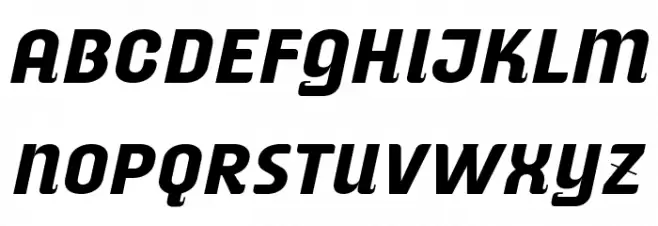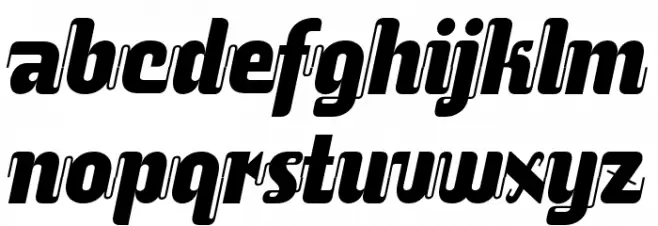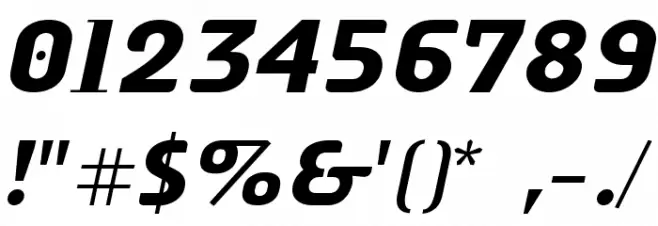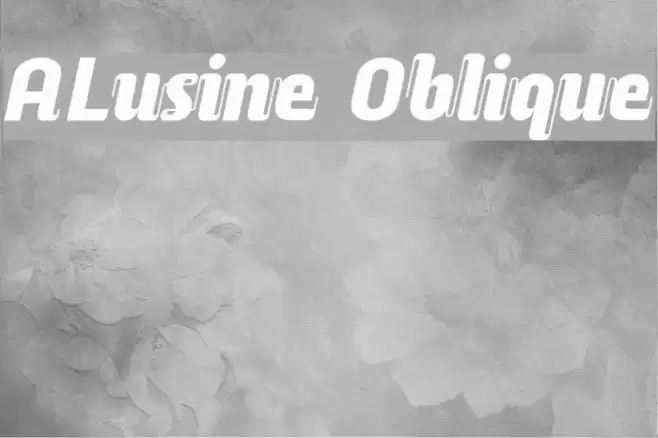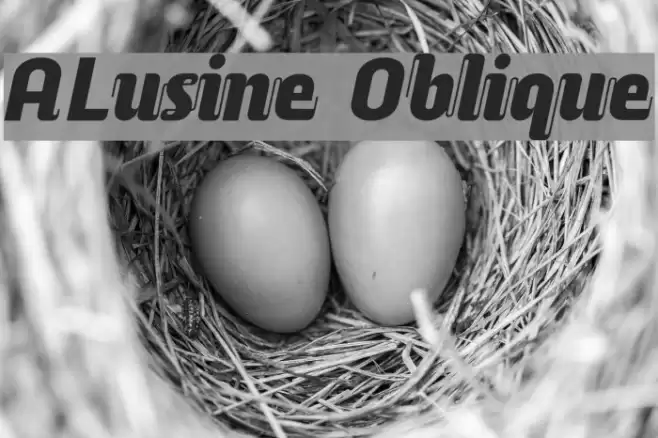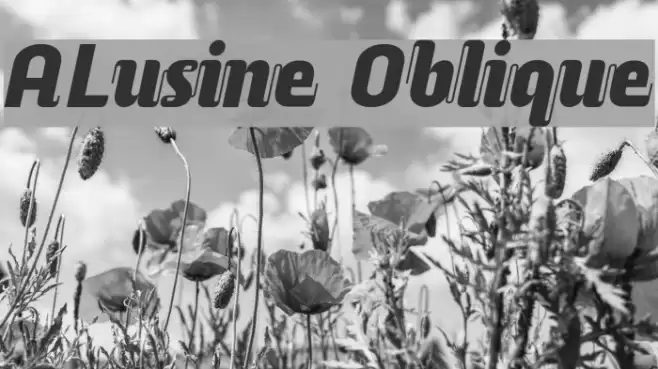
ALusine Oblique
This font features a dynamic and modern oblique style, characterized by its forward-leaning posture and smooth curves. The uppercase and lowercase letters maintain a consistent slant, giving a sense of motion and energy. The numerals and special characters are designed to complement the alphabet with similar slanted angles and bold strokes. The overall appearance is sleek and contemporary, making it suitable for projects that require a touch of sophistication and flair.
A modern oblique font with a sleek, dynamic style.
- Proposed Projects: Ideal for branding, advertising, and editorial design where a modern and energetic look is desired.
- Use Case: Headlines, Logos, Branding